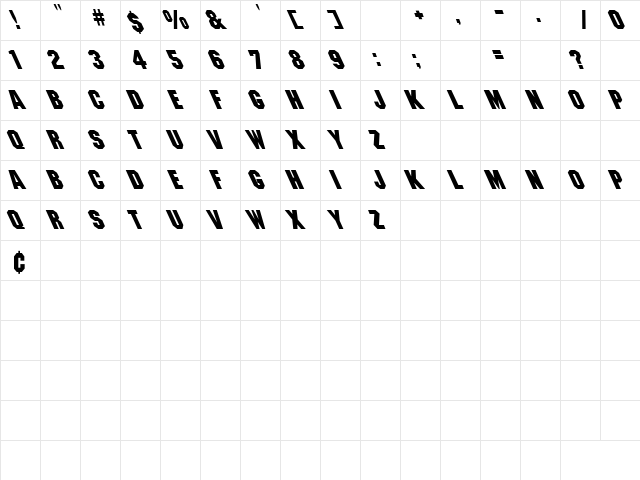
Machiav Bold Lefty Regular
Design Context for Machiav Bold Lefty Typeface
Machiav Bold Lefty offers clean, dependable letterforms without strong stylistic allegiance, making it a practical choice for designers who need flexibility. Its bold stroke weight gives it real presence on the page.